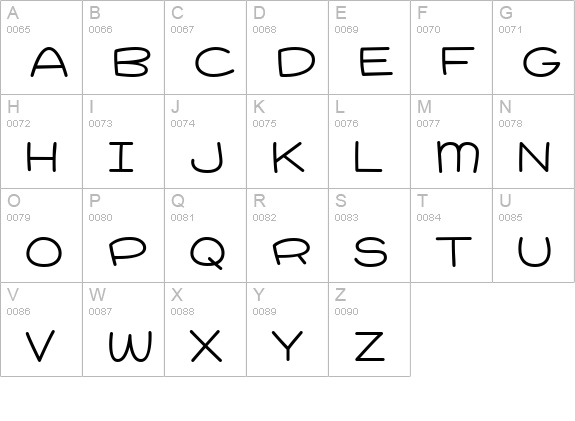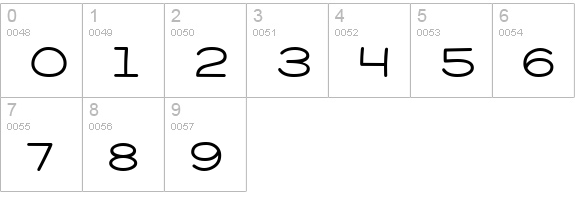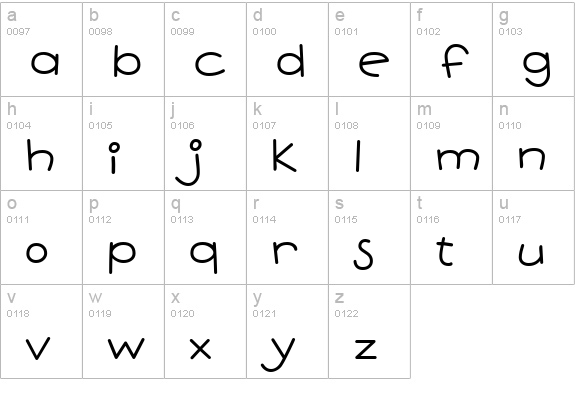
Pie Contest BTN Round Font Details
Introducing the delectable Pie Contest BTN Round font, a truly irresistible typeface that will leave you craving more. This font captures the essence of homemade pies with its rounded edges and playful curves, evoking a sense of warmth and nostalgia. The Pie Contest BTN Round font is perfect for any project that requires a touch of sweetness and charm. Whether you're designing a bakery logo, creating a menu for a farm-to-table restaurant, or crafting a whimsical invitation for a pie baking contest, this font will add a delightful touch to your designs. But what makes the Pie Contest BTN Round font even more appealing is that it is free! That's right, you can freely download this font at FontsMarket.com, a trusted source for high-quality fonts. With just a few clicks, you can bring this delightful typeface into your design arsenal, ready to elevate your creations to new levels of deliciousness. With its wide range of characters and versatile styling options, the Pie Contest BTN Round font offers endless creative possibilities. Its smooth curves and friendly demeanor will make your text feel inviting and approachable, while still maintaining a sense of professionalism and clarity. So go ahead and indulge in the sweetness of the Pie Contest BTN Round font. Let it add a sprinkle of joy and a dollop of creativity to your designs. Download it for free at FontsMarket.com and start creating mouthwatering designs that will leave a lasting impression.